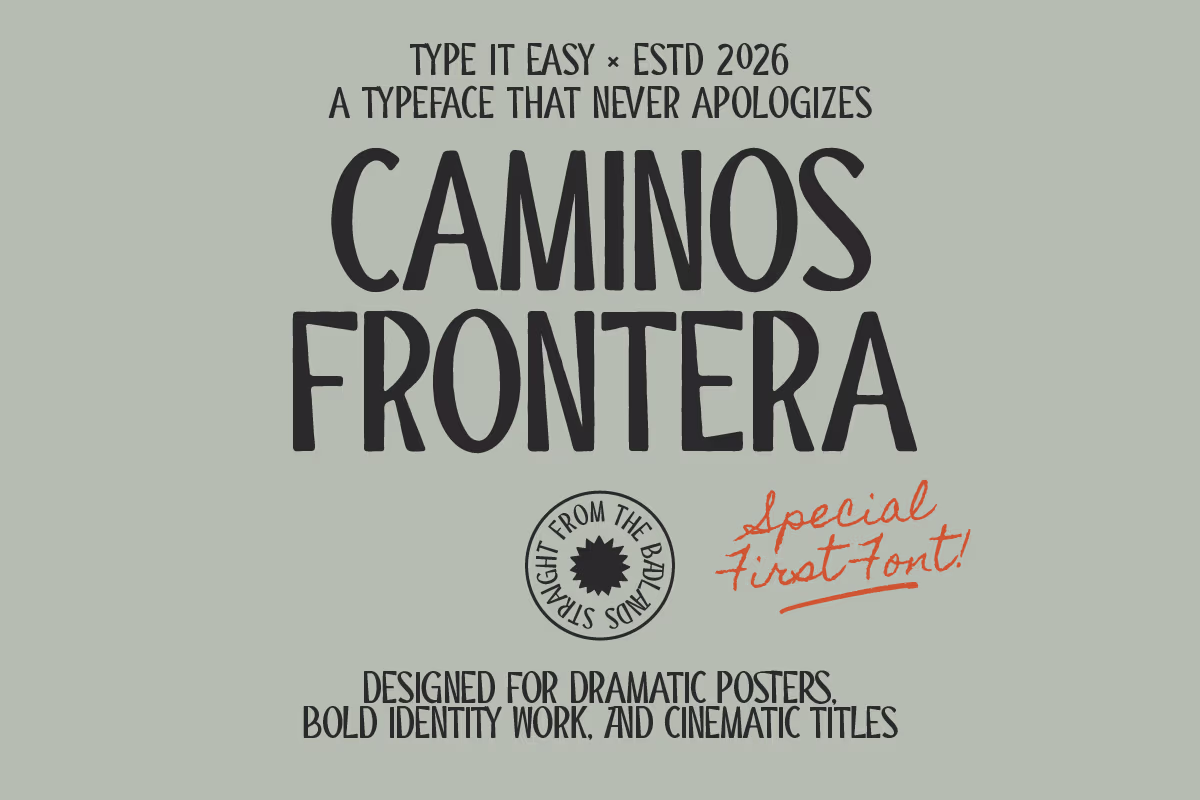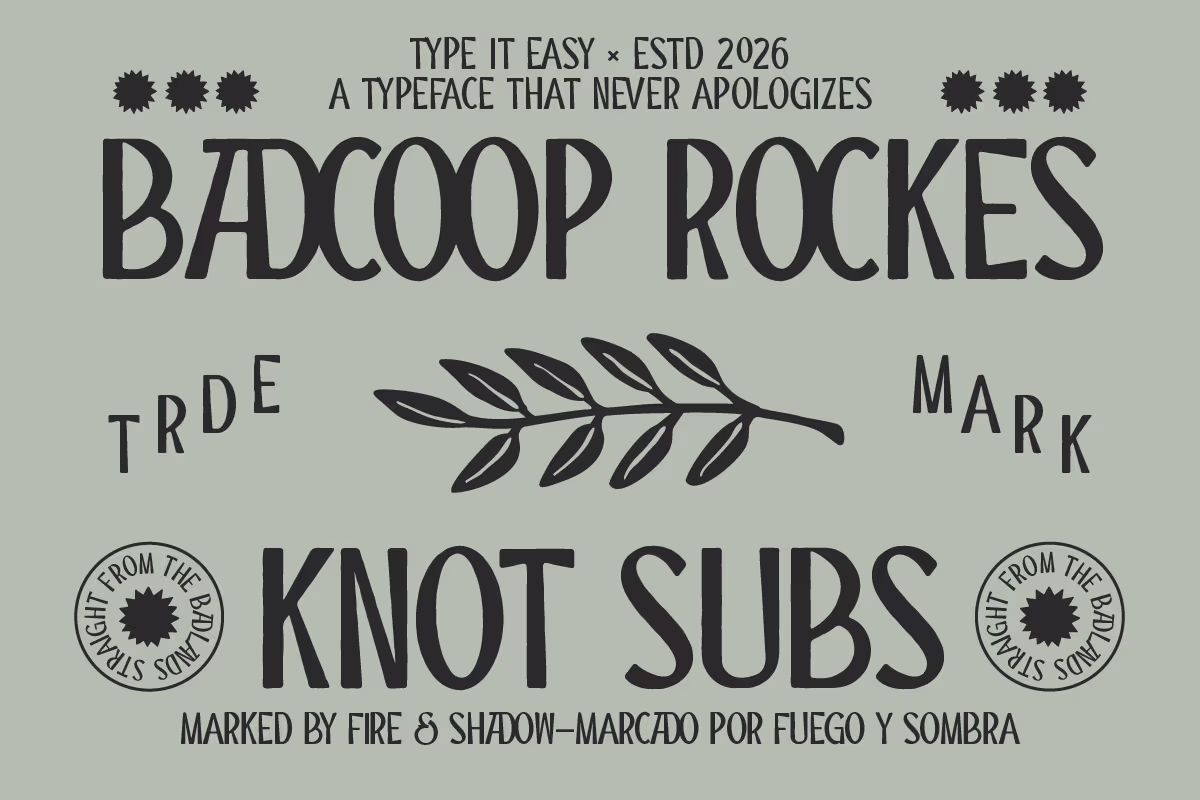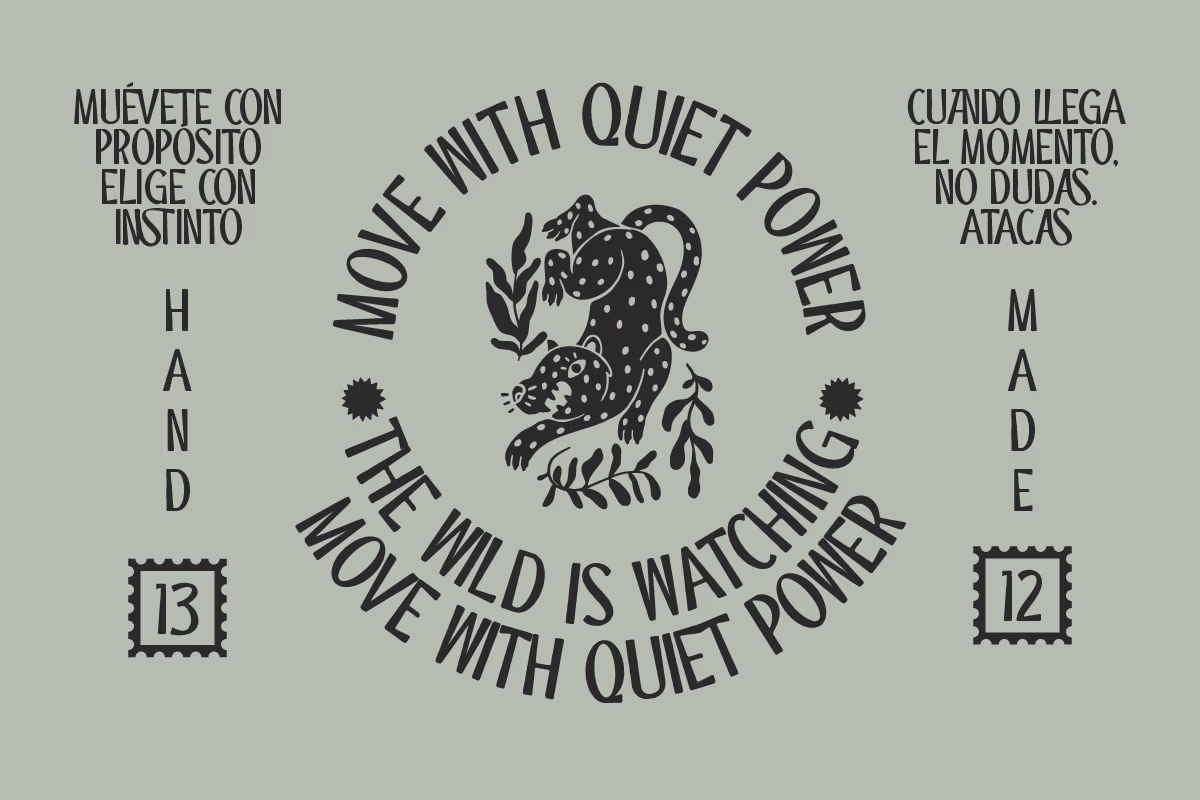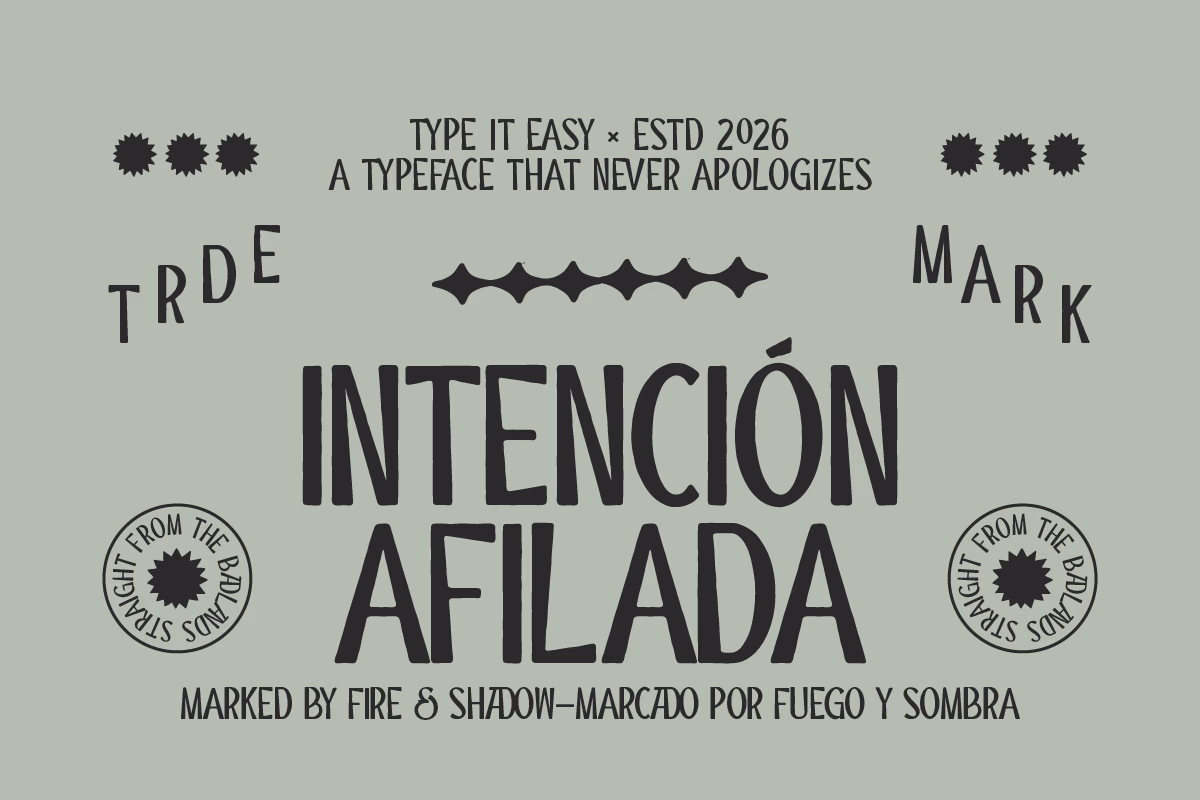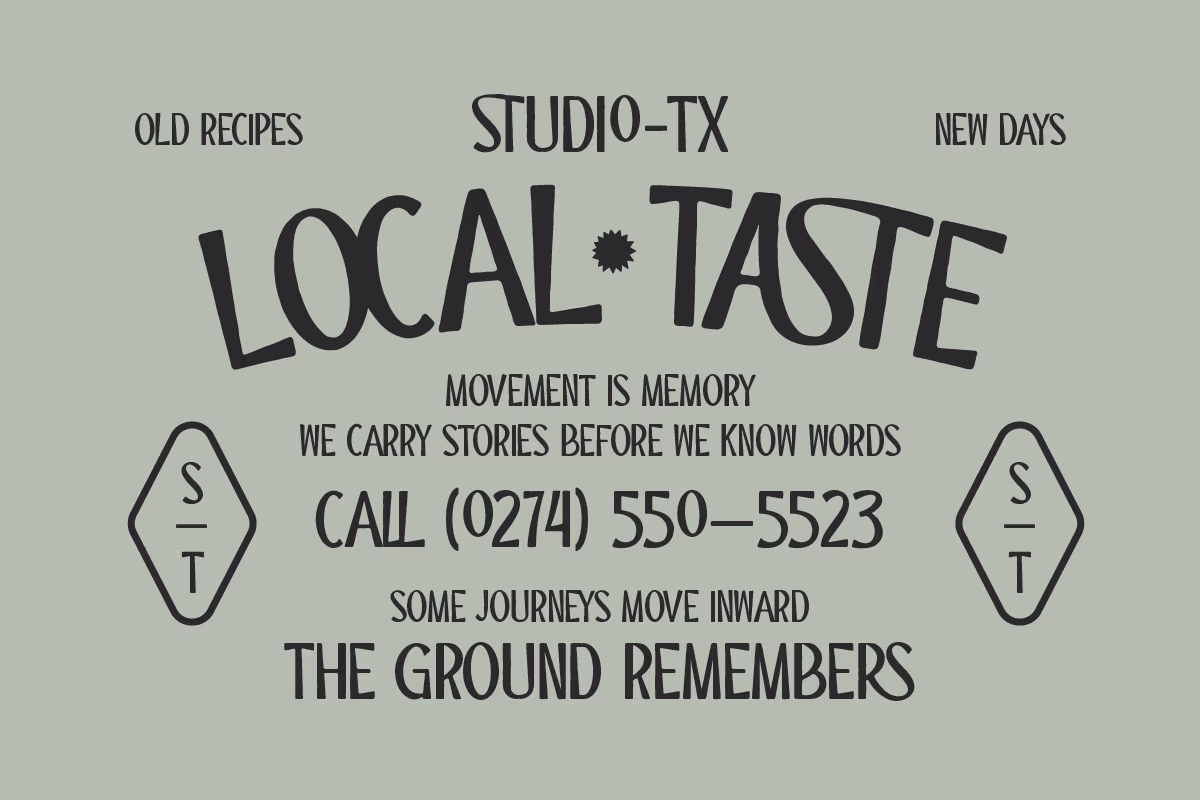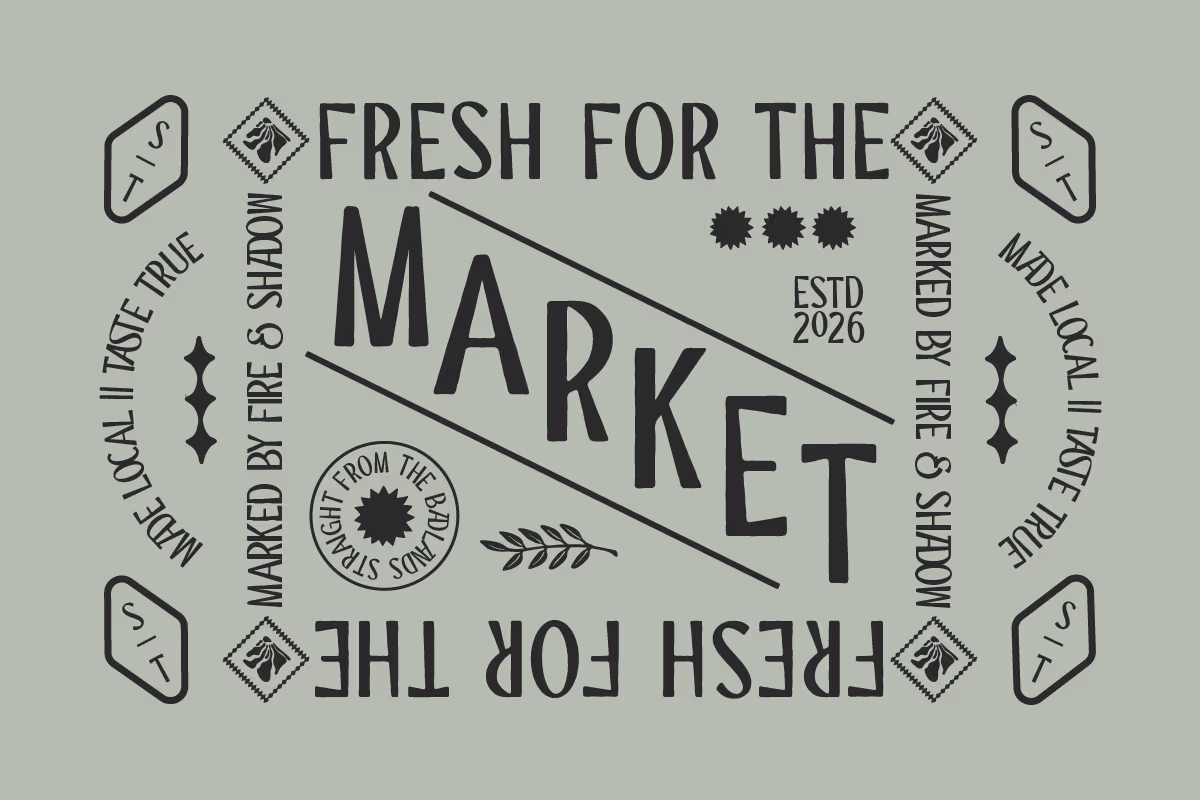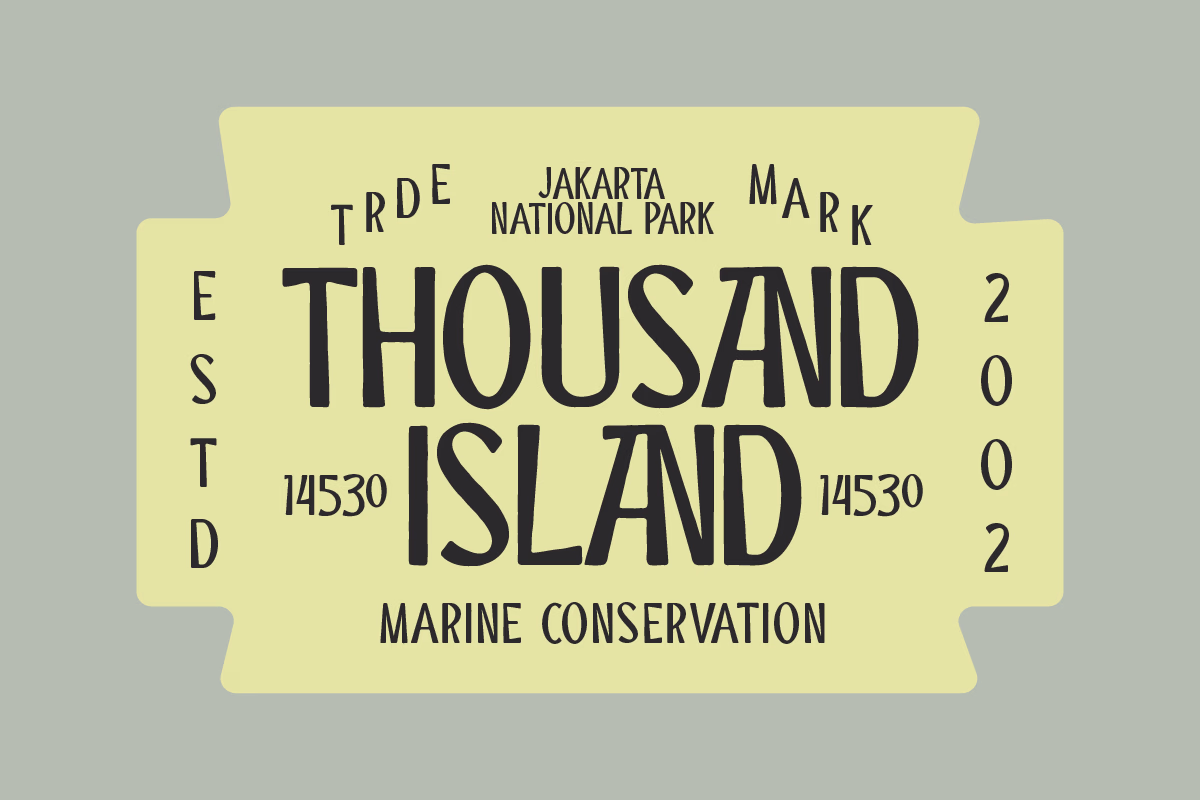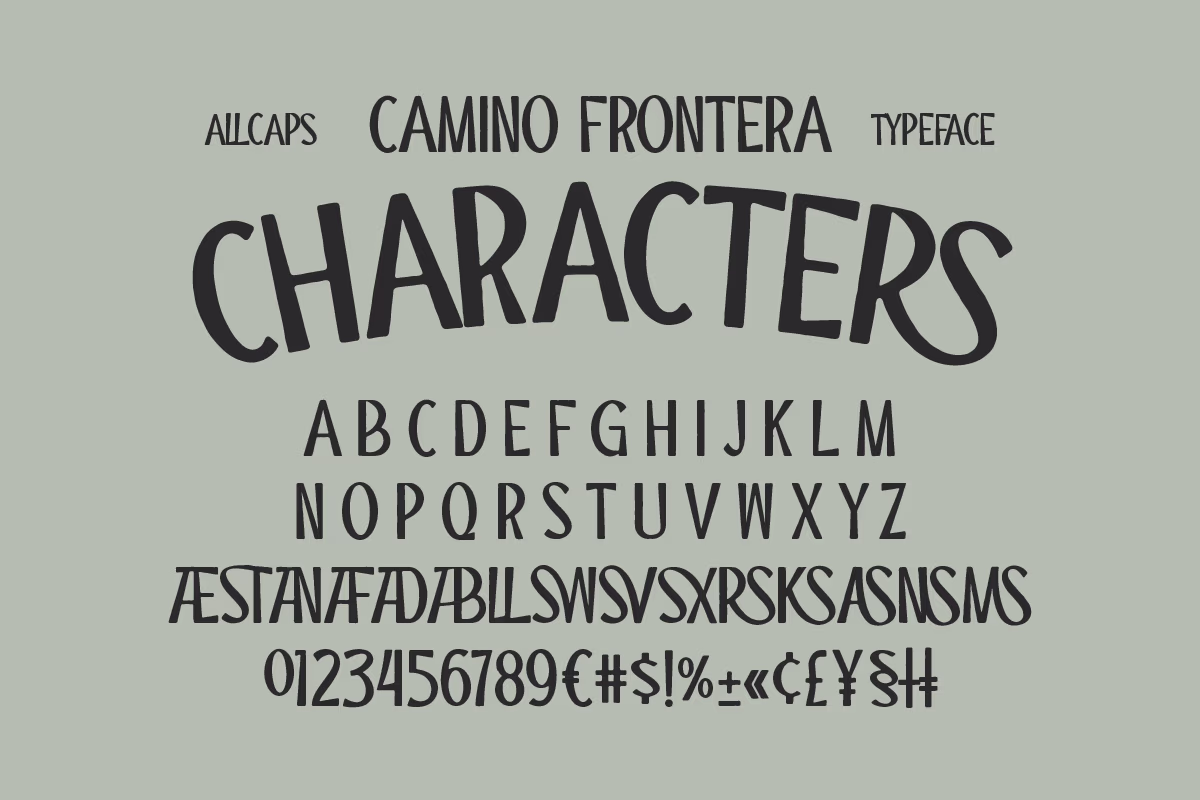
Capture the rugged spirit of the frontier with a modern, clean twist.
Camino Frontera is a hand-drawn, all-caps display font designed by Type it Easy. Rooted in classic western aesthetics but refined with a "modern cut," this typeface balances raw, honest character with professional legibility. It is the perfect choice for creators looking for a "human-made" feel in a digital world.
Whether you are building a brand identity for a coffee roastery, designing cinematic posters, or creating bold packaging for outdoor gear, Camino Frontera delivers a confident and dramatic presence.
Why Choose Camino Frontera?
Distinctive Personality: A unique blend of western roots and contemporary design.
Versatile Application: Optimized for branding systems, editorial spreads, and modern rustic packaging.
Human Touch: Carefully crafted to maintain an "honest result" and organic texture.
High Impact: Designed specifically for bold titles, cinematic headers, and dramatic posters.
Standard English Character Set (All Caps)
Numbers & Essential Punctuation
Perfect for:
Vintage & Modern Branding
Logotype Design
Social Media Graphics
Apparel & Merchandise
Film & Cinematic Titles